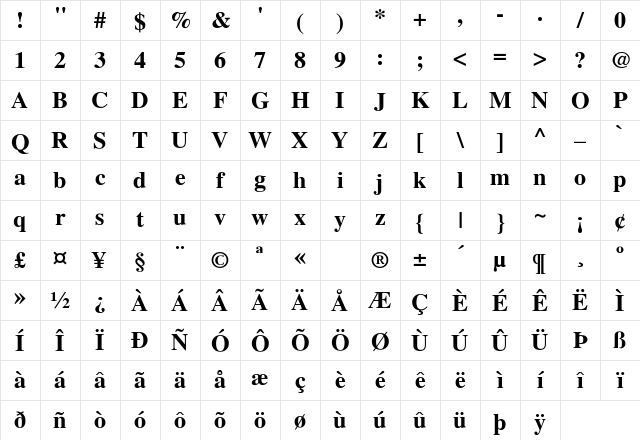
Complete Dabbington Bold Regular glyph index. Displaying only characters natively supported by Dabbington Bold Regular font.
Dabbington Bold is a composed and adaptable typeface that performs quietly and consistently across a wide range of design contexts. Its bold stroke weight gives it real presence on the page.